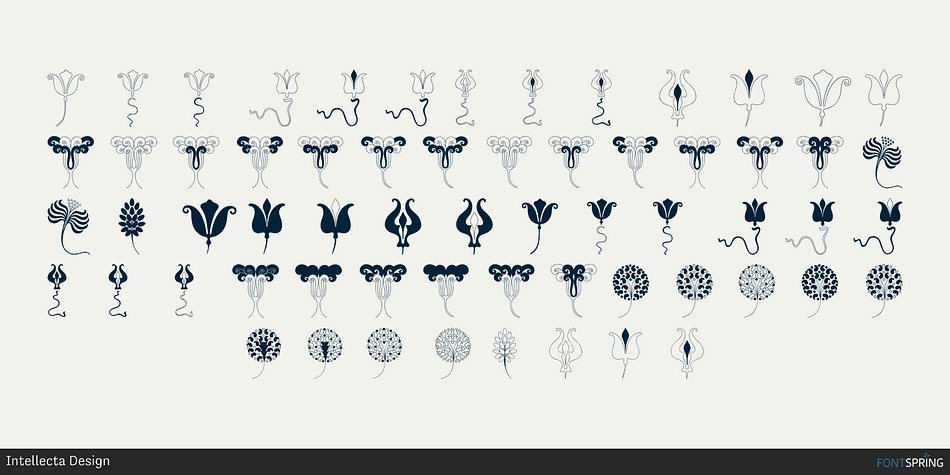
Jugendstil Flowers Four Regular
Jugendstil Flowers Four is a dingbat font published by Intellecta Design.
Jugendstil Flowers are a collection of dingbats fonts with ornaments, leitmotivs and fleurons, free inspired in the visual style from the golden age of the Art-Nouveau graphic movement.